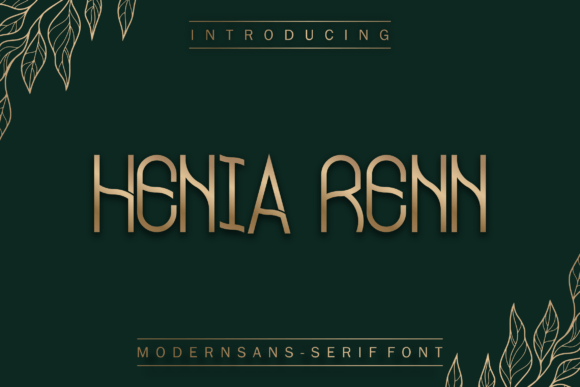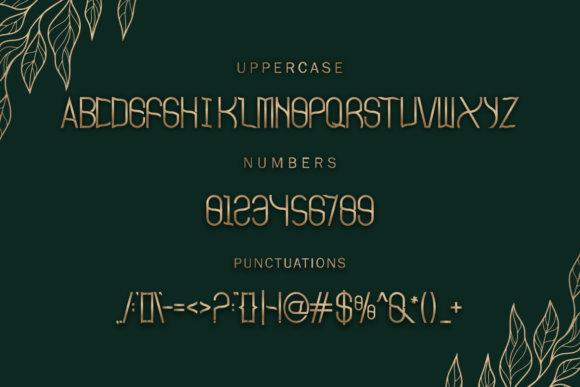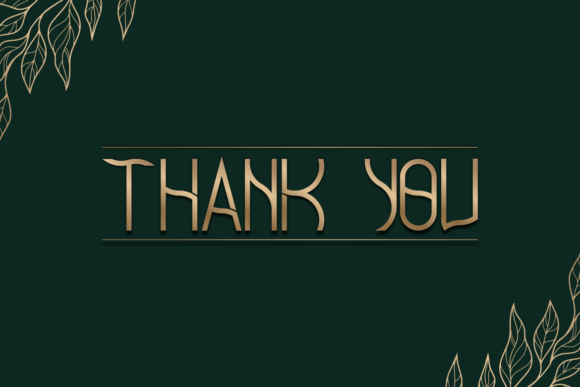
Henia Renn Font
About the Henia Renn Font
From logos to headlines, the Henia Renn Font is the perfect choice for making a lasting impression. Henia Renn is a sleek and exquisite sans serif font, perfectly suitable for creating quotes, Wedding Invitations, and lifestyle designs such as logos, titles, magazines, and more.
Its elegant and refined nature makes Henia Renn ideal for branding projects requiring a touch of sophistication, particularly logos, short headlines, and packaging design where readability at a glance is key. It also excels in high-end marketing materials such as brochures and website headers. However, its delicate stroke weight makes it less suitable for body text or UI elements requiring high legibility at smaller sizes.
For optimal visual harmony, pair Henia Renn with a contrasting but complementary typeface. A classic serif like Garamond or a geometric sans-serif like Futura would create a balanced and sophisticated aesthetic. Alternatively, a playful script font could add a touch of personality, provided it’s used sparingly to avoid overwhelming Henia Renn’s inherent elegance.
The overall personality of Henia Renn is sophisticated and modern, conveying a sense of understated luxury and high quality. It is best suited for brands aiming for a premium or exclusive image.